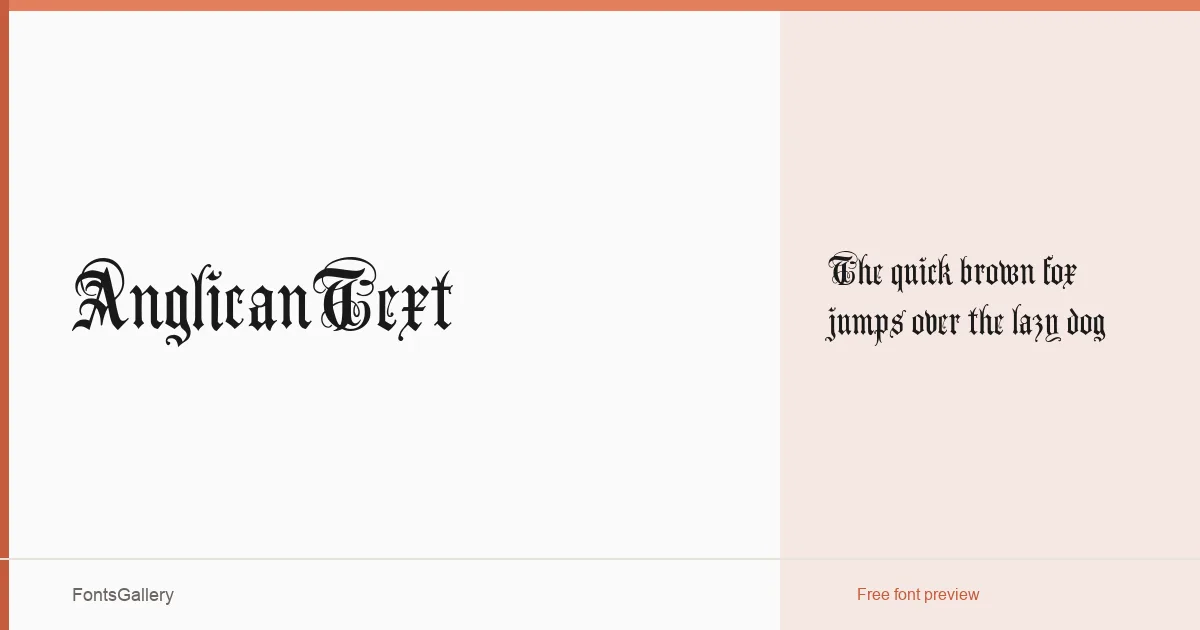
About AnglicanText Font
AnglicanText is a striking Blackletter typeface from Typographer Mediengestaltung that channels the elegance and authority of classic gothic script traditions. With its bold, vintage character, it commands attention and brings a sense of timeless prestige to any design. This typeface is an ideal choice for projects that demand a sophisticated, heritage-inspired aesthetic.
AnglicanText features the dramatic, high-contrast strokes and angular letterforms characteristic of the Blackletter category, lending it a distinctly classic and elegant quality. Its bold construction gives each character a strong visual weight, while the refined details preserve a sense of vintage sophistication. The result is a typeface that feels both authoritative and ornate, perfectly suited to designs that celebrate traditional craftsmanship.
AnglicanText excels in high-impact applications such as logos, posters, headlines, branding materials, and certificates, where its bold, classic presence can take center stage. It is especially effective for brands and projects seeking a vintage or heritage identity with an air of distinction. For a compelling contrast, consider pairing AnglicanText with the clean modernity of Helvetica or the complementary style of Aresink.